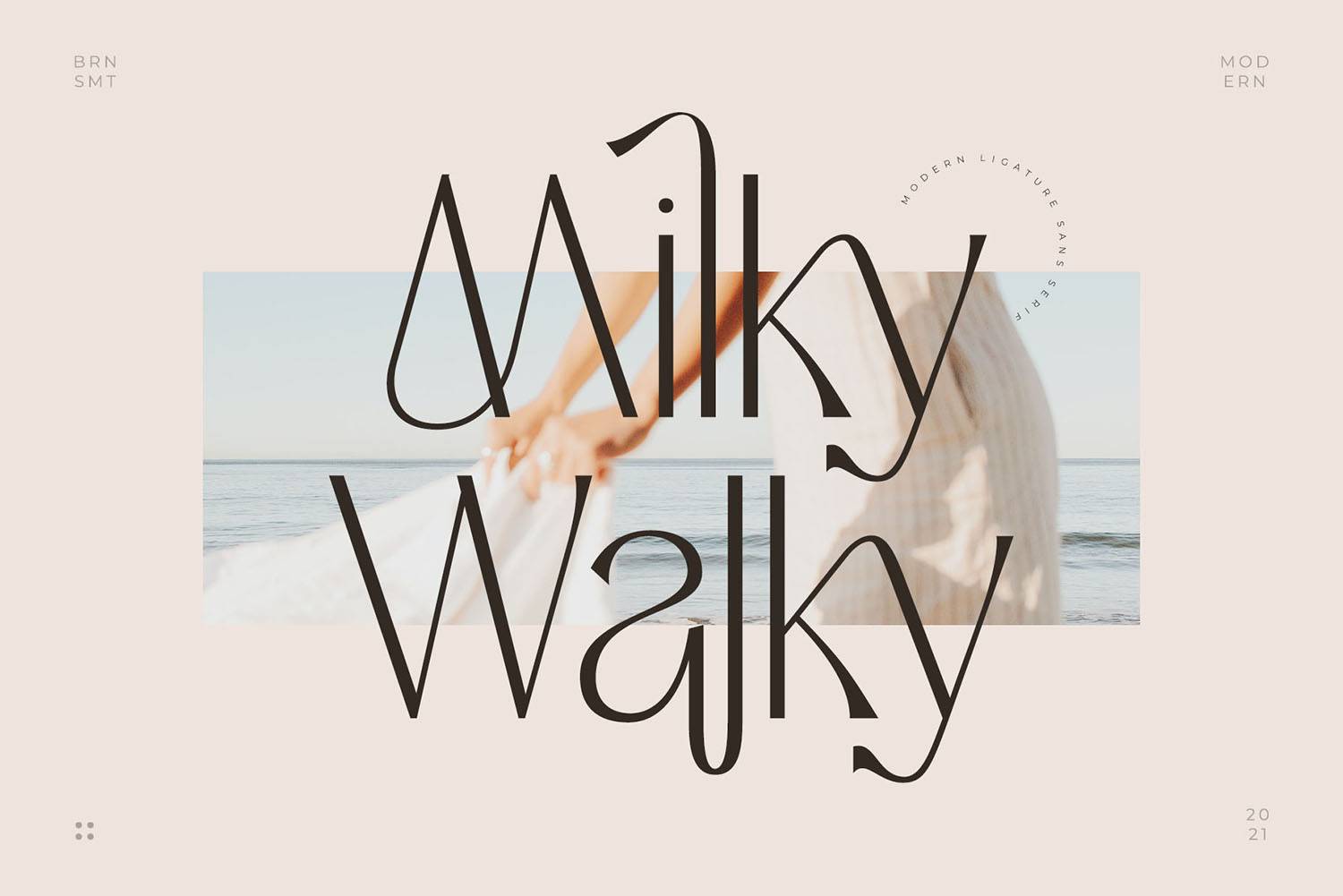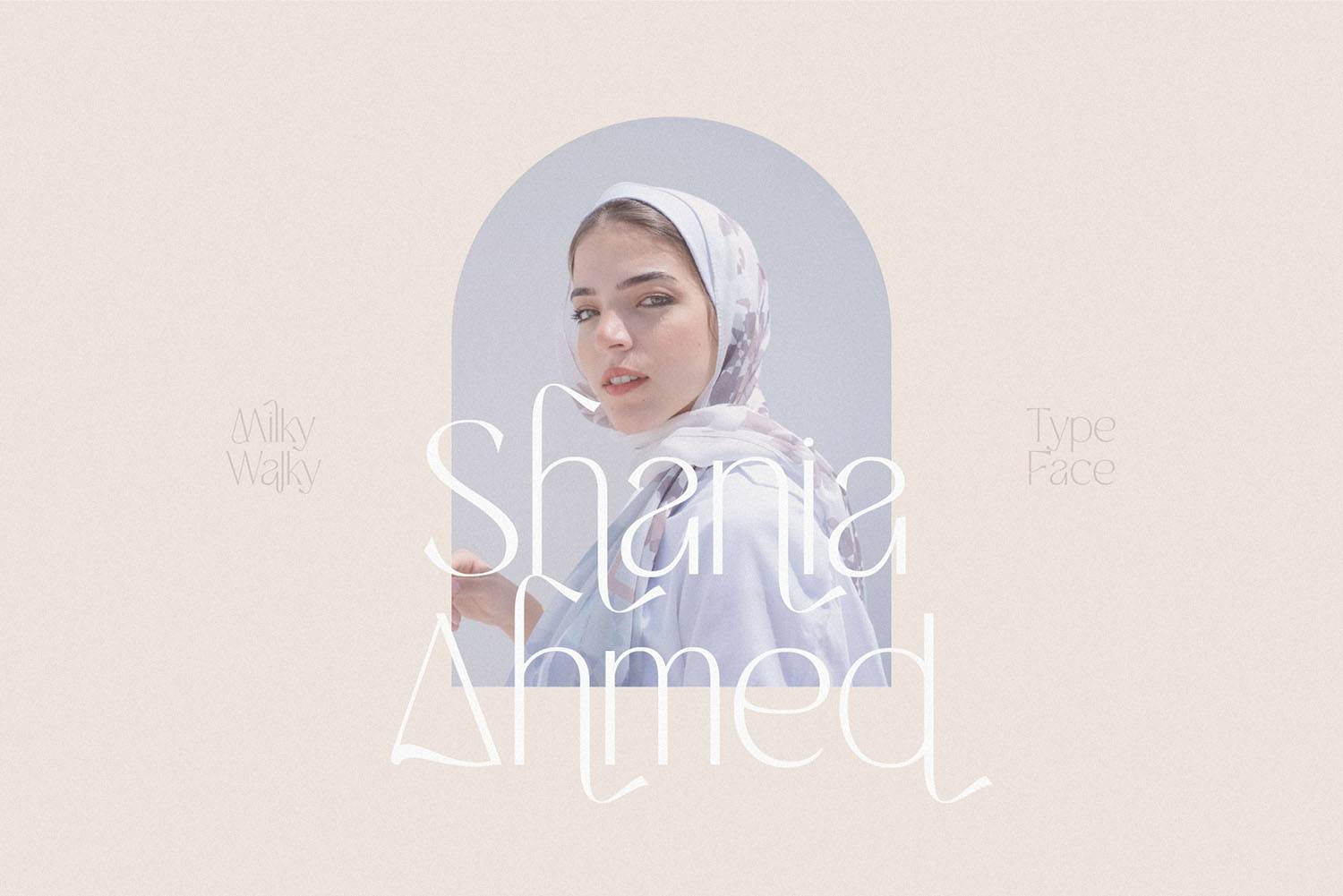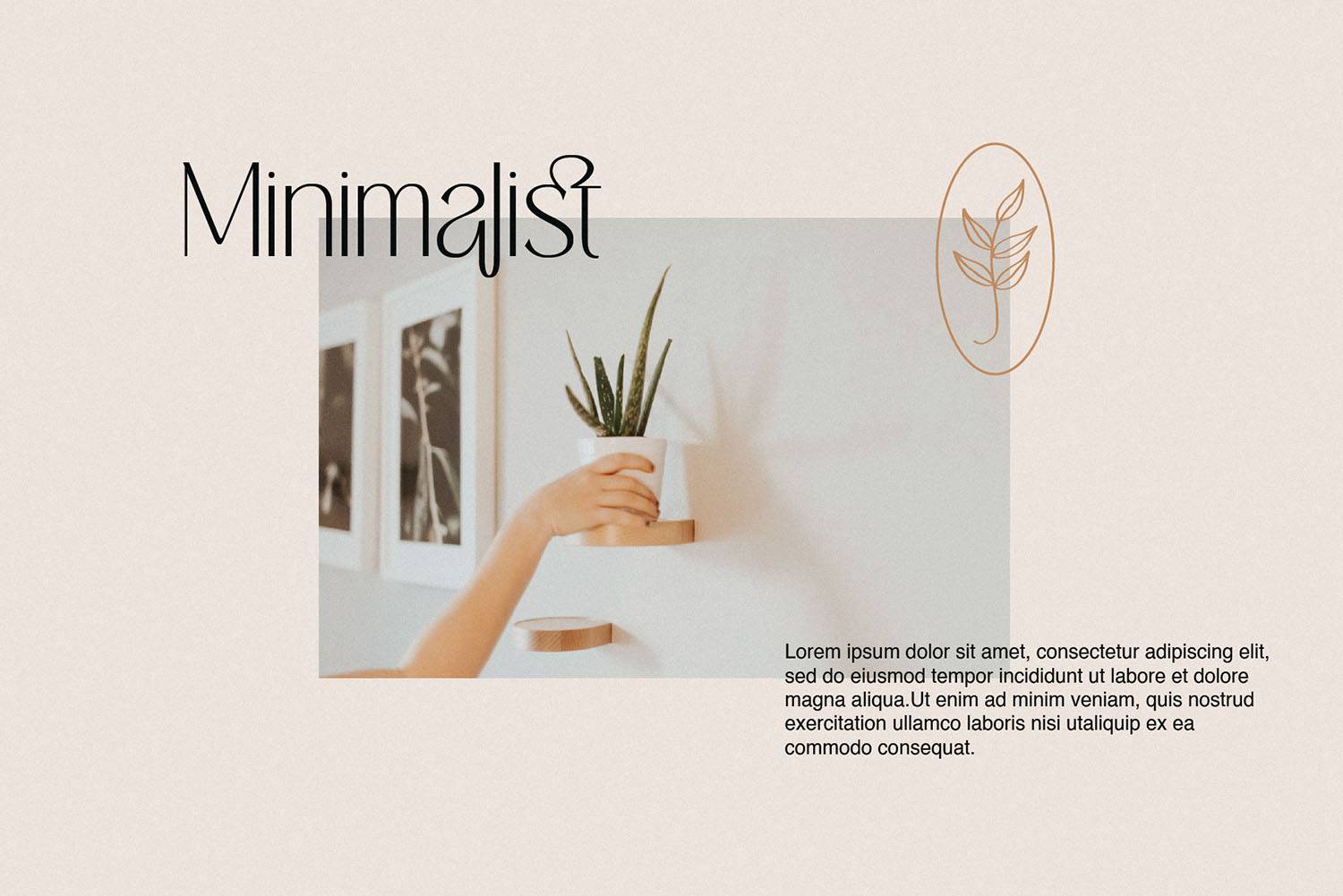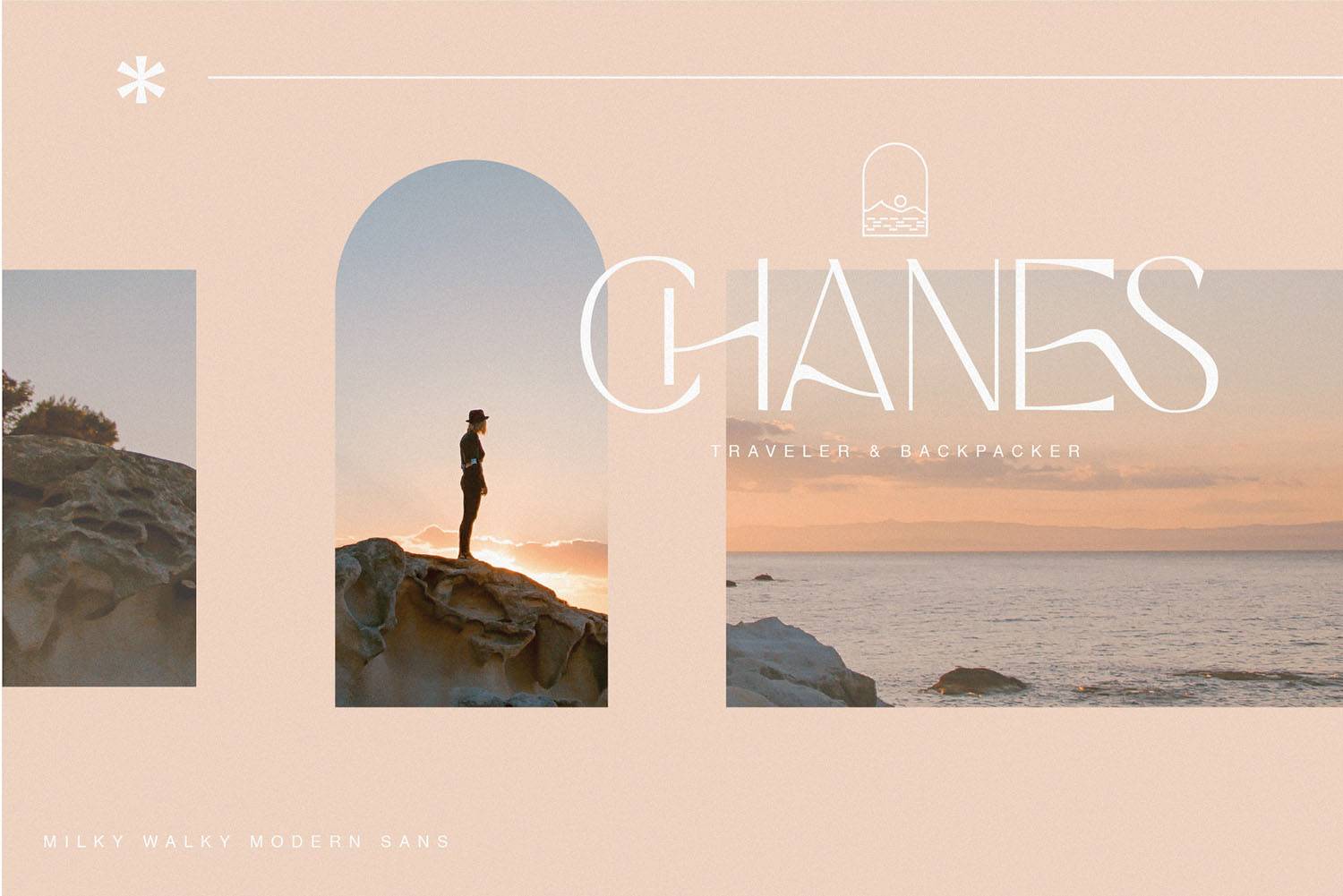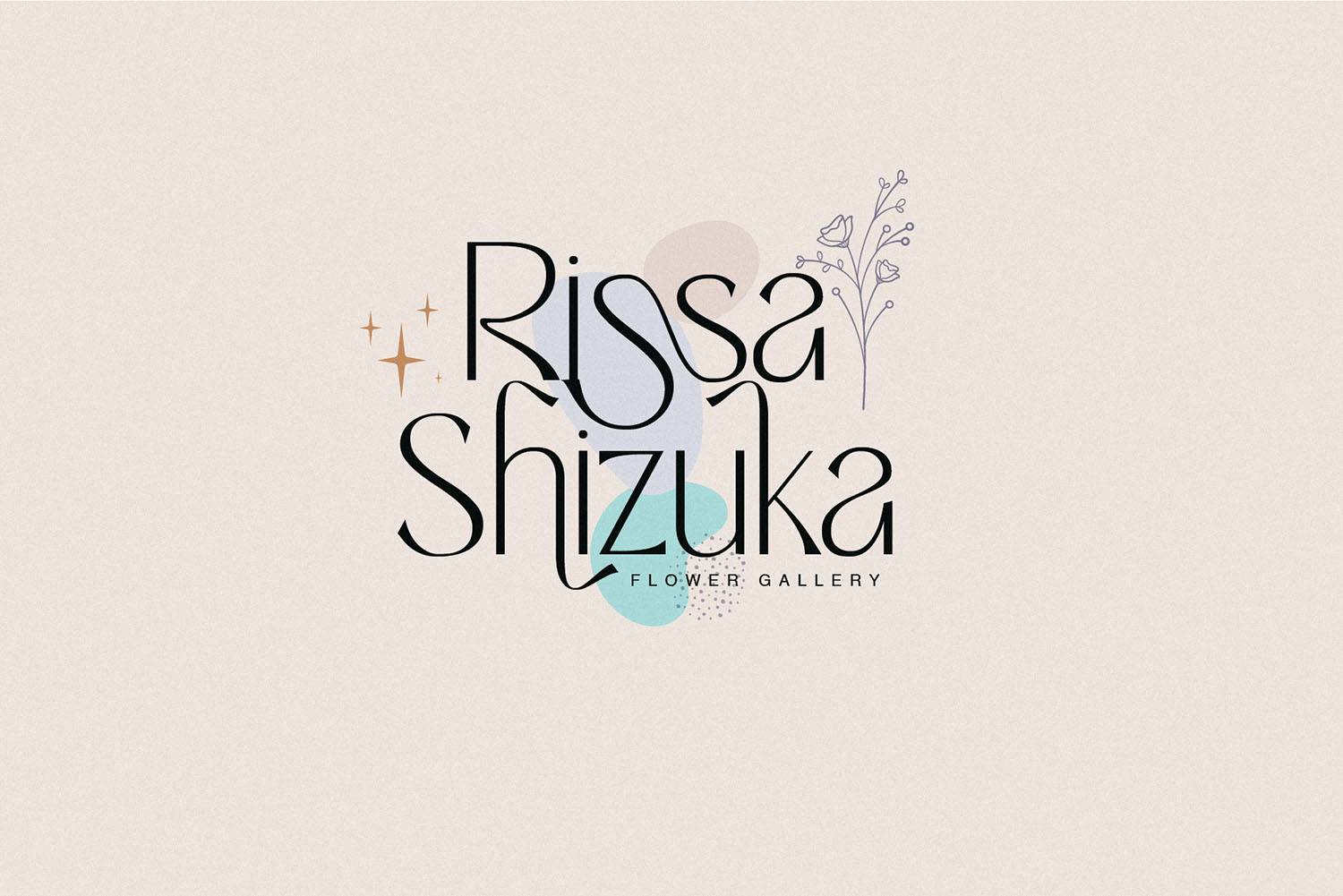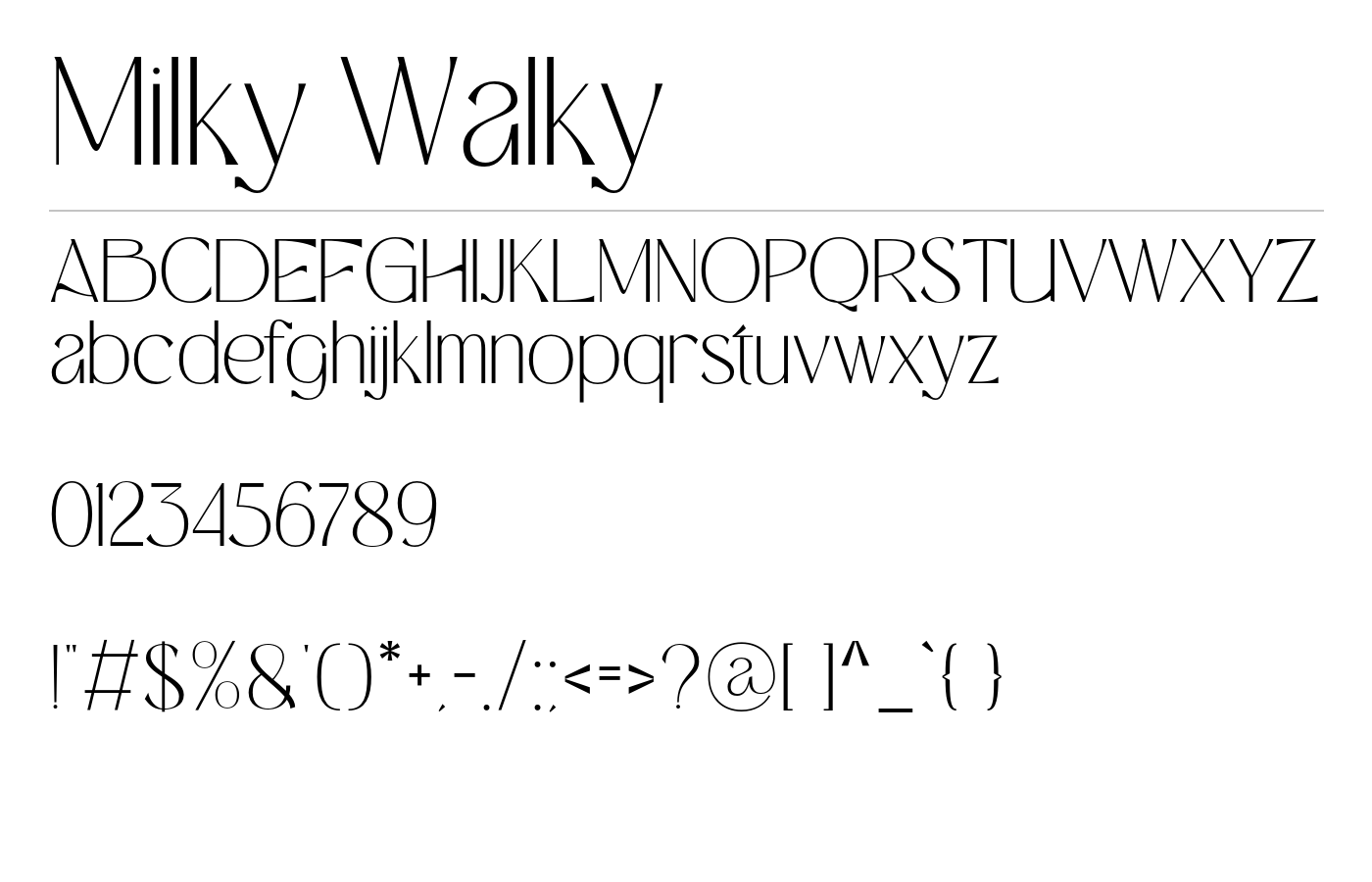
Milky Walky is a slender, elegant serif font with a modern and delicate feel, characterized by its high contrast between thick and thin strokes and unique, quirky letterforms that add a playful yet refined touch. Its narrow width and graceful curves make it ideal for stylish headlines, fashion branding, or editorial use where a distinctive, artistic flair is desired. This font works best when used to convey sophistication with a hint of whimsy, perfect for creative, upscale projects.
Milky Walky Font
About Milky Walky Font
| Font family | Milky Walky Font |
| Designer | Brandsemut |